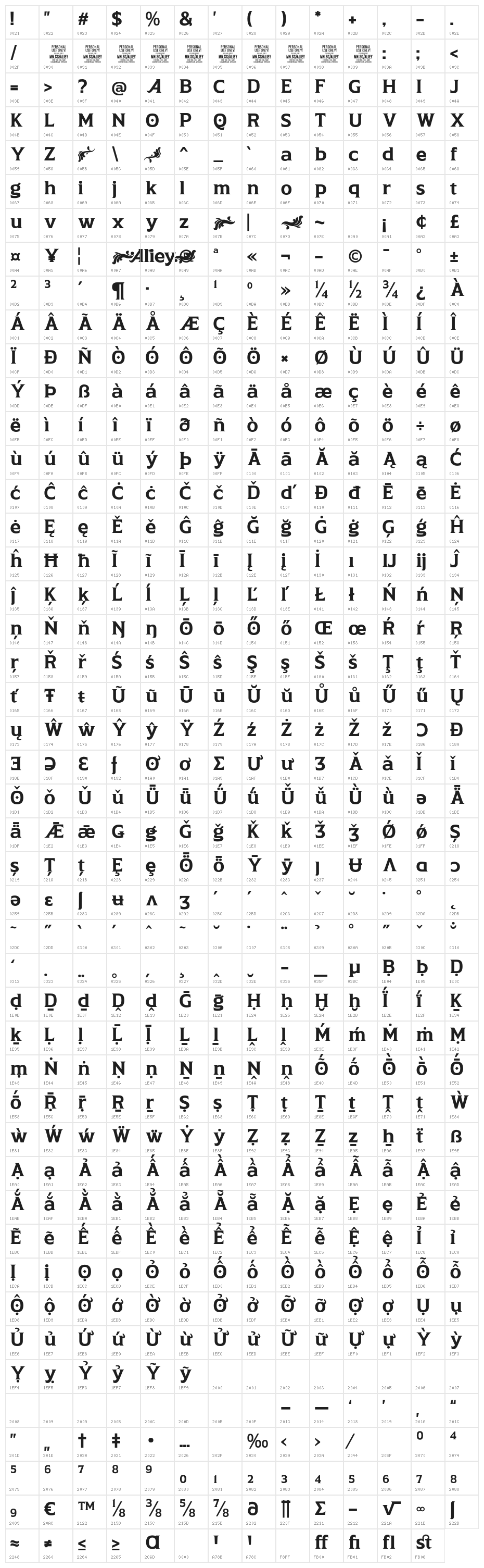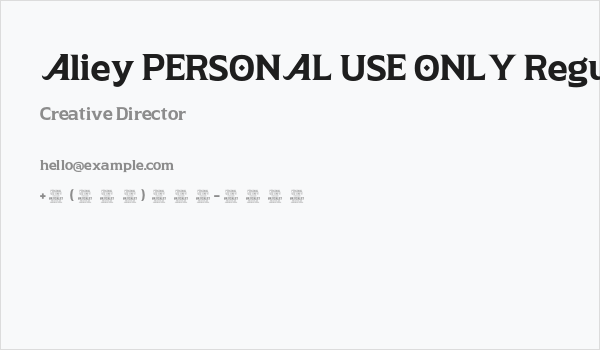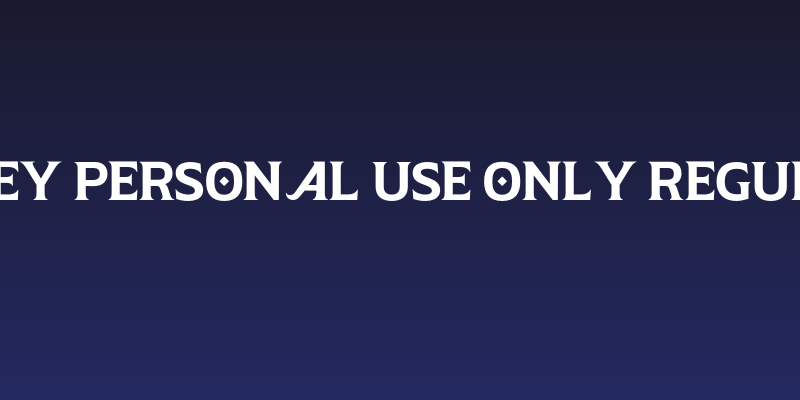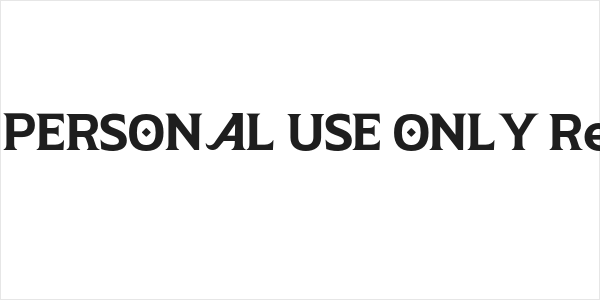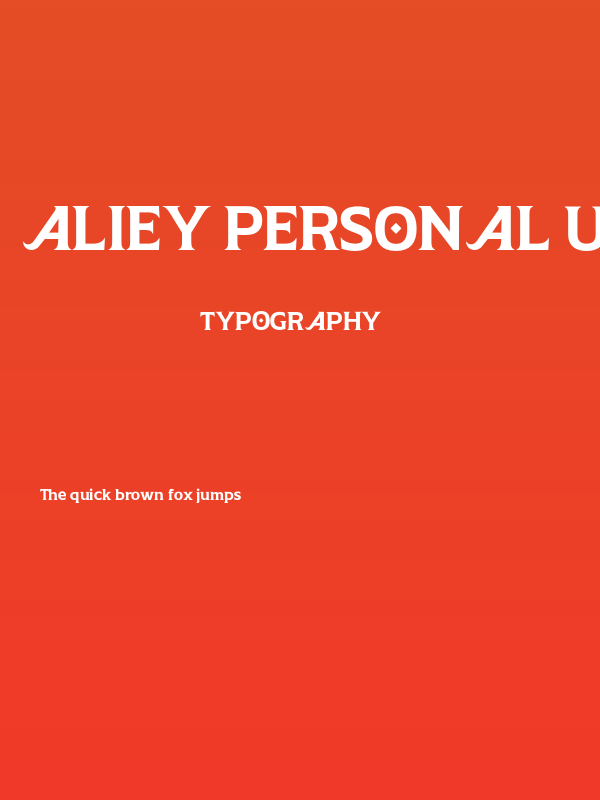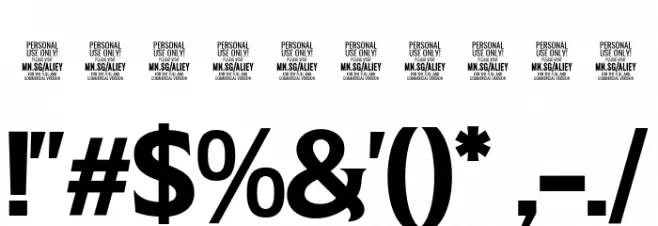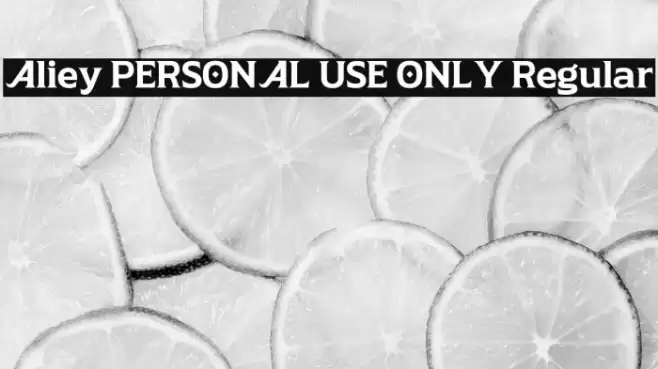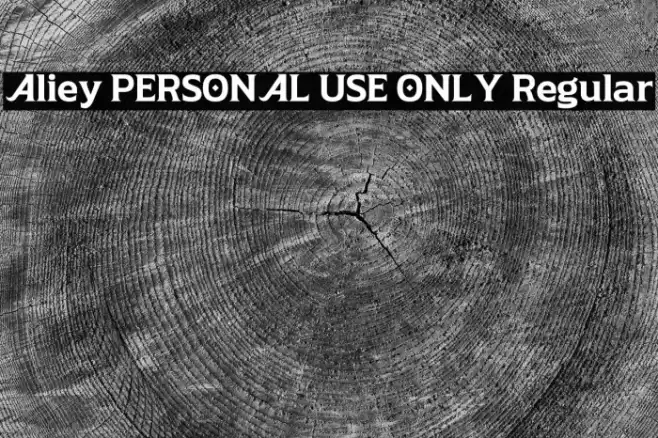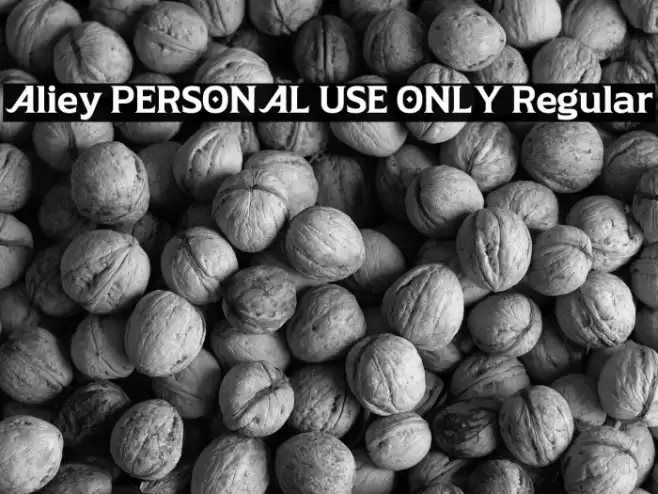
Aliey PERSONAL USE ONLY Regular Font
Aliey PERSONAL USE ONLY Regular Description
This font features a bold and distinctive style with a modern twist. The uppercase letters have a strong presence, characterized by thick strokes and unique geometric elements, particularly noticeable in letters like 'O' and 'Q'. The lowercase letters maintain a consistent weight, offering a balanced and cohesive look. The numerals and special characters are crafted with the same boldness, ensuring uniformity across all glyphs. This font's design is both eye-catching and versatile, making it suitable for various creative applications.